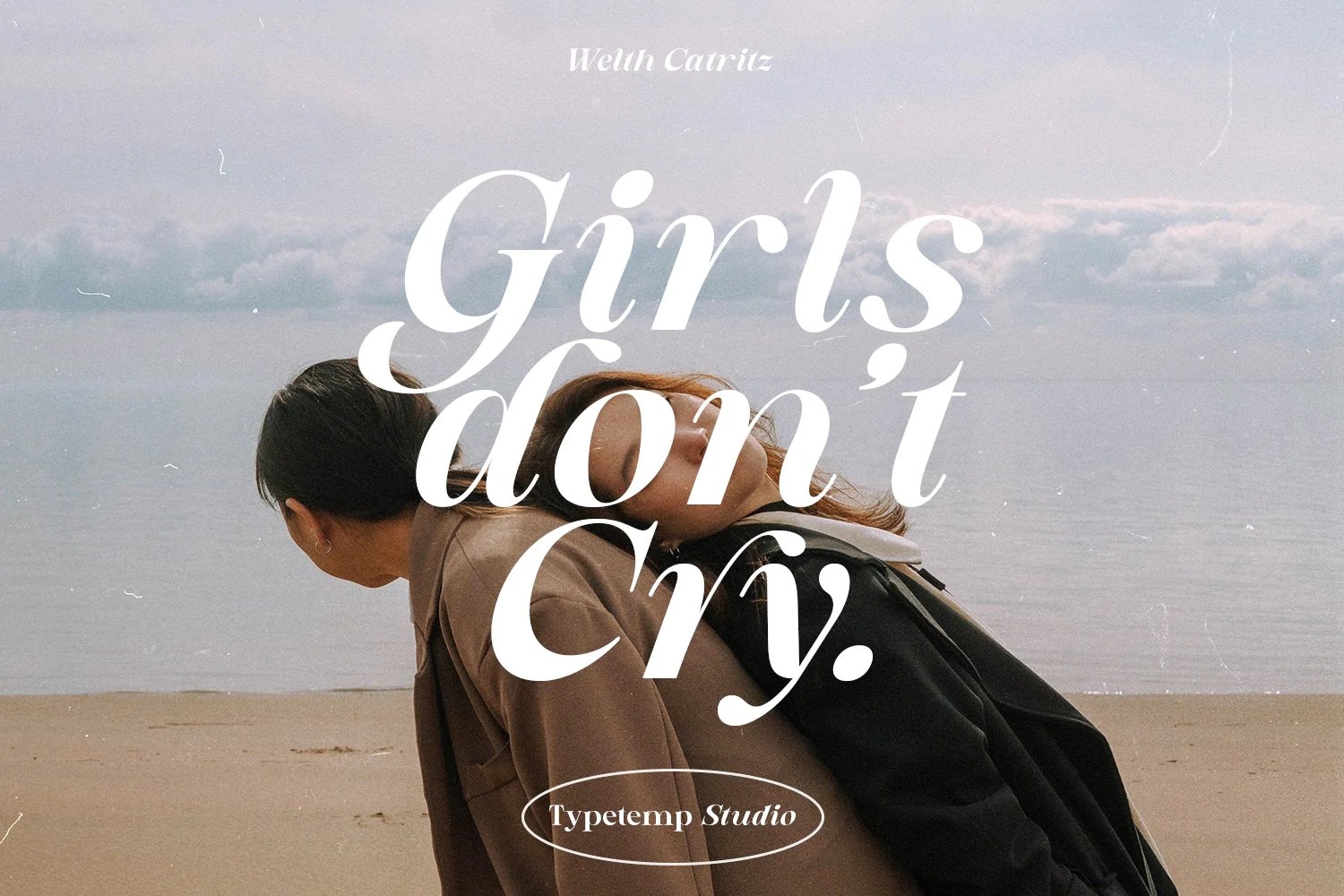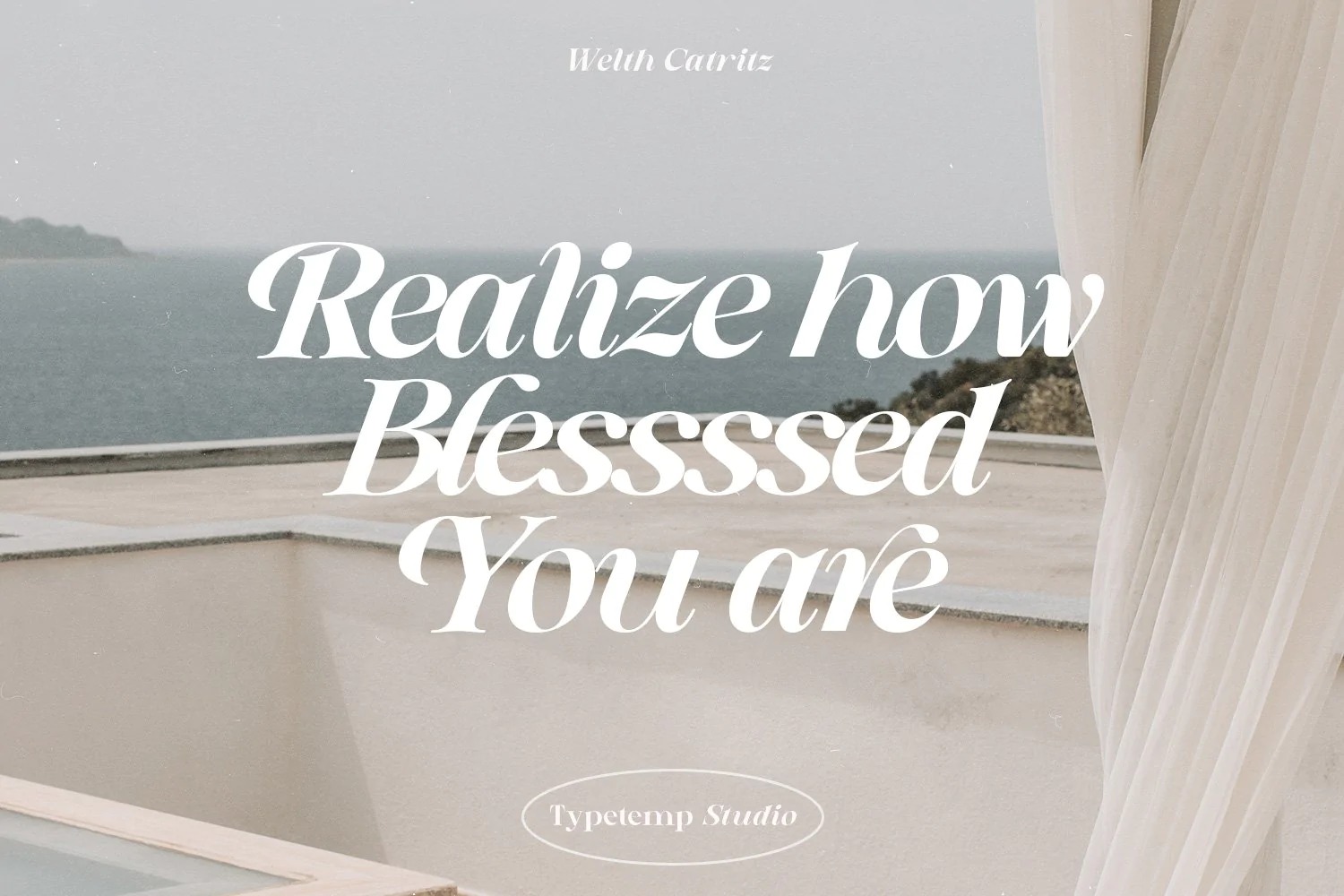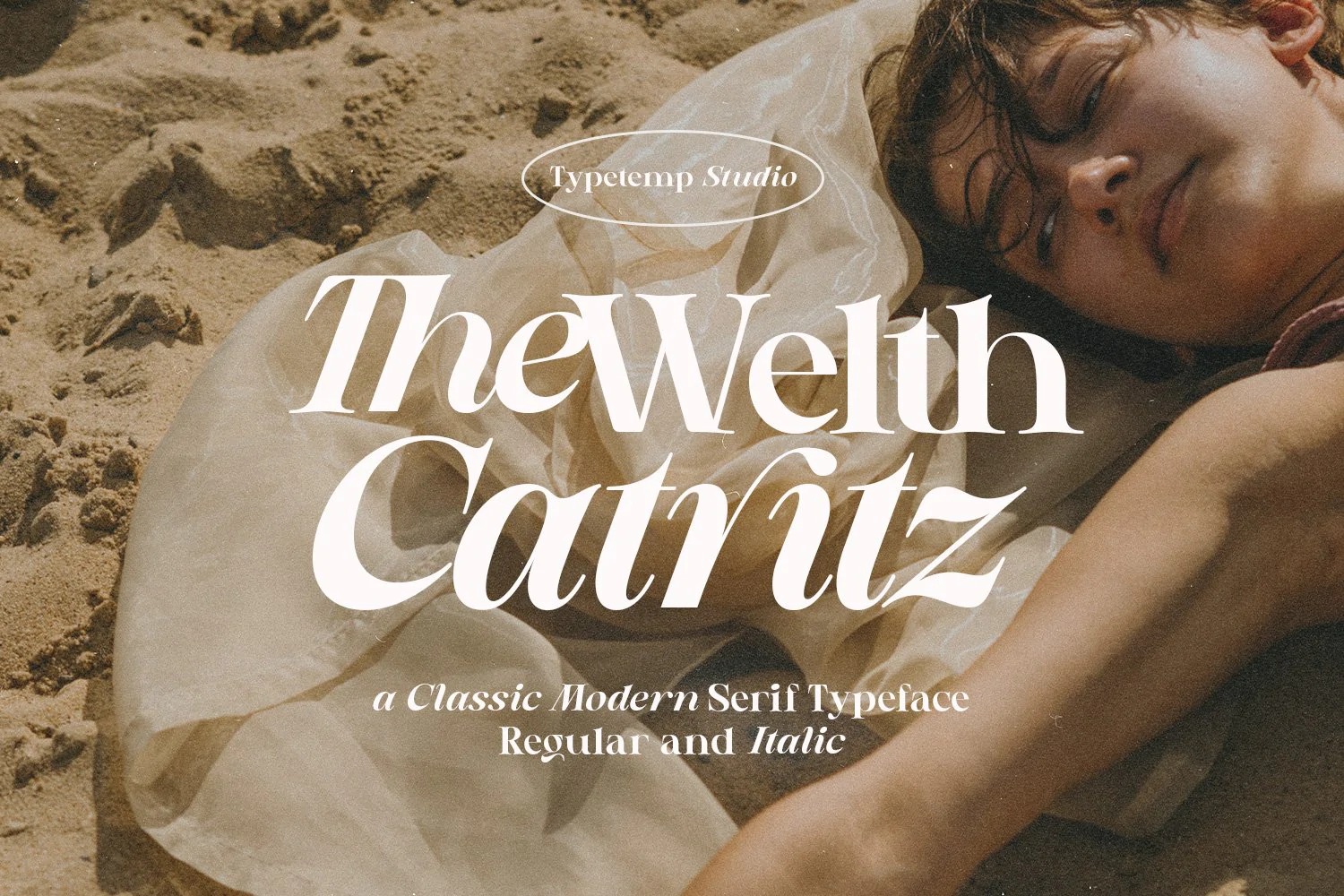
Welth Catritz Font
Welth Catritz Serif Font is a elegant and classy serif typeface with a fashionable touch. This typeface comes with alternatives and ligatures, helping you create stunning logos, quotes, blog posts, branding projects, magazine imagery, wedding invitations, and more.